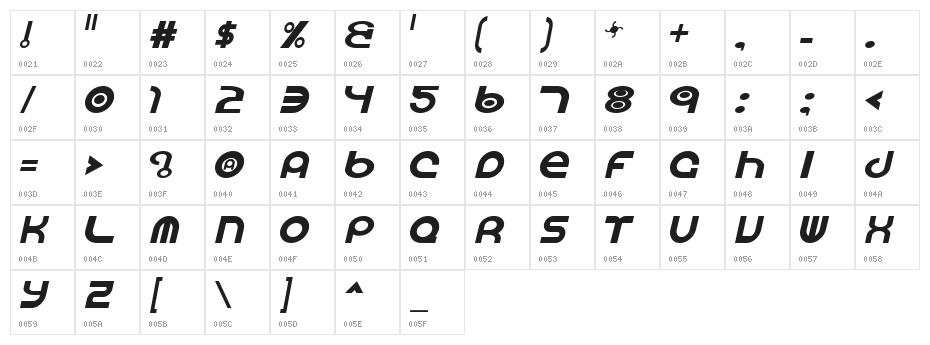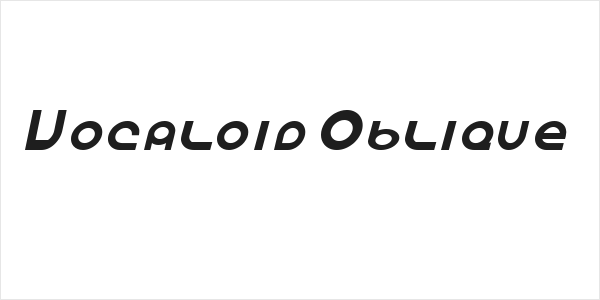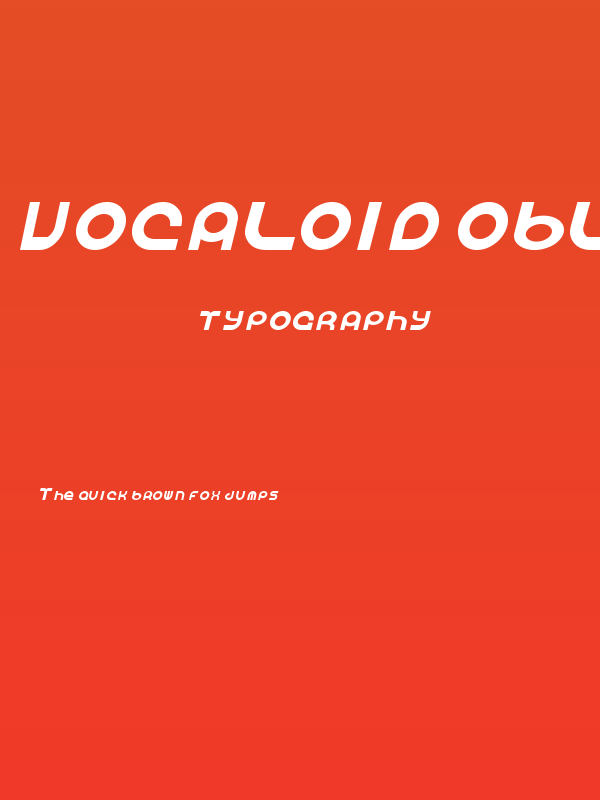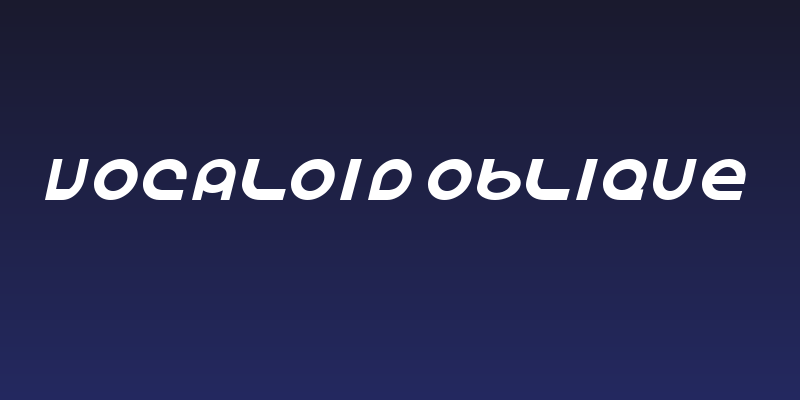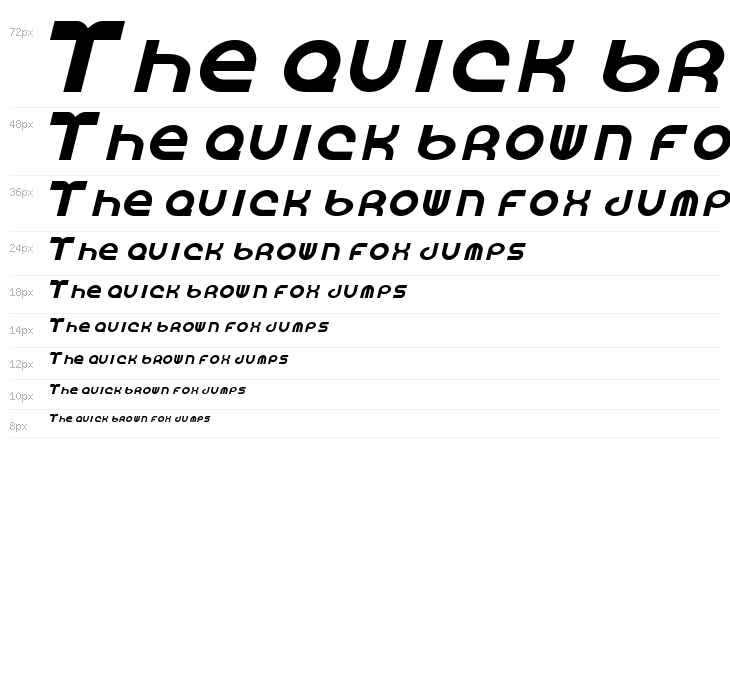
Vocaloid Oblique Font
Vocaloid Oblique Description
This font features a sleek, futuristic design with an oblique slant, giving it a dynamic and forward-moving appearance. The characters are bold and rounded, with a consistent stroke width that maintains readability while adding a modern flair. The lowercase letters mirror the uppercase in style, maintaining a cohesive look throughout. Numbers and special characters are designed with the same attention to detail, ensuring uniformity across all glyphs. The font's unique style makes it stand out, making it suitable for projects that require a contemporary and innovative touch.
| Proposed Projects | Ideal for tech branding, video game titles, futuristic posters, and digital interfaces. |